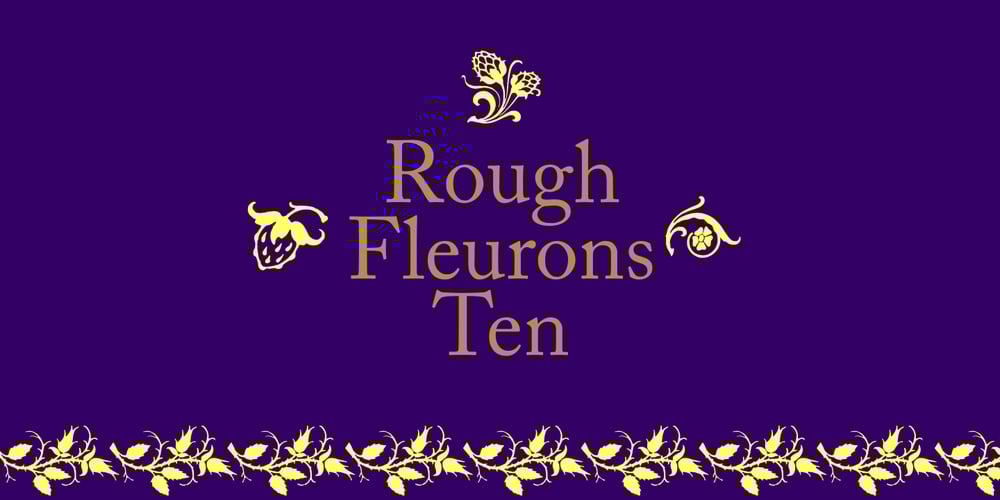
Rough Fleurons Font Family was designed by Paulo W and published by Intellecta Design. Rough Fleurons contains 8 styles and family package options. A decorative dingbat font design featuring many borders, ornaments and frame like illustrations. Works great in classic and vintage themed design projects.